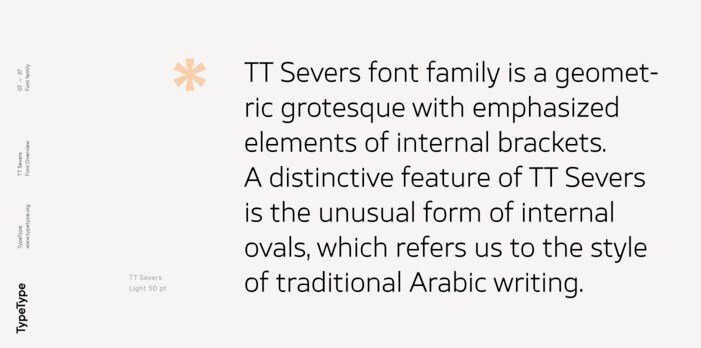
Traditional Arabic font is the simple and modern font typeface that creates unique and elegant designs. You can use this beautiful typeface in printing, packaging, posters and logos designs.
All characters have a less than excellent shape that offers a natural appearance in design. It easily cooperating collectively and best for developing the traditional style logos, labels, package deal design, lettering for t-shirts and many others.
Modern Arabic font is one of those present-day fonts that do not involve curves and projections on the quit of a letter, as a substitute, it is angular and is designed primarily based on geometric bureaucracy and features.
Arabic typesetting font is the precise typeface for developing elegant headlines, style magazine covers, e-book covers, templates, and creative shows and logo designs. It pairs well with different handwritten, script, serif and sans-serif fonts and capabilities more than one weights.
Some letters even have 25 unique patterns. It has many functions. With the titling alternates characteristic, the uppercase text looks incredible. For specified paintings on price menus, you can use tabular lining.
Multilingual assist it is usually a clean version without texture. Open type features (ligatures and alternates) allows making your lettering extra thrilling. Additionally, there are alternate swashes.
Traditional Arabic Font
Traditional Arabic font is a set of five weights and it is good for making creative shows and it has a sober contact. It’s a lovable and specific serif font in our shop, permitting you to make each word’s appearance absolutely elegant!
Easy and cutting-edge. Those are the words that describe this font the nice. Enclosed in a square field, the slime alphabets make up for a really perfect headline.